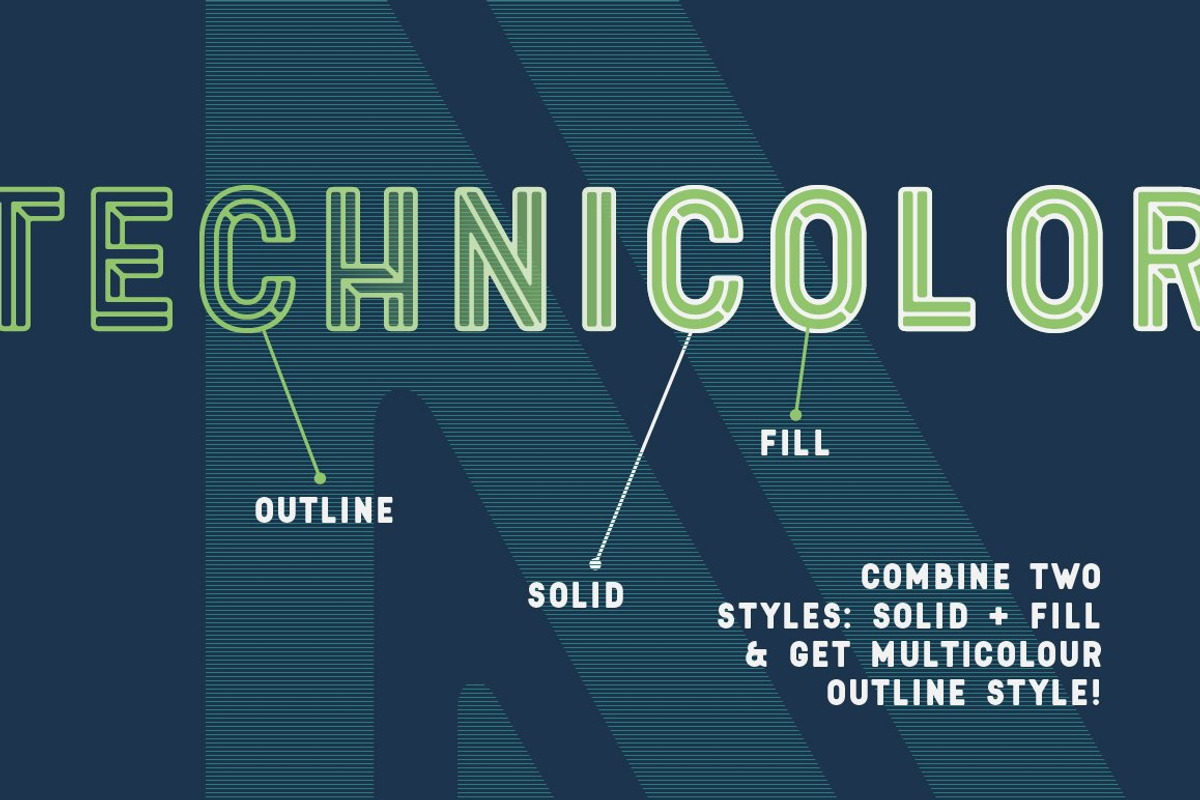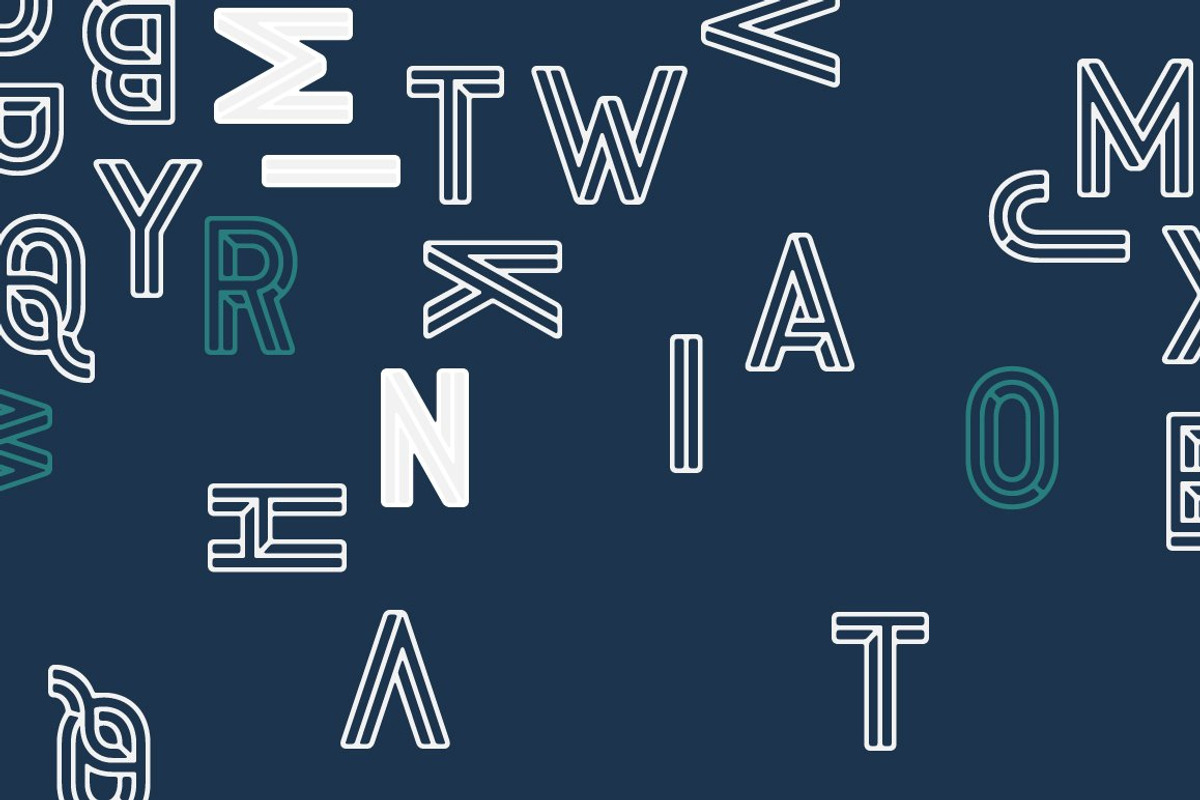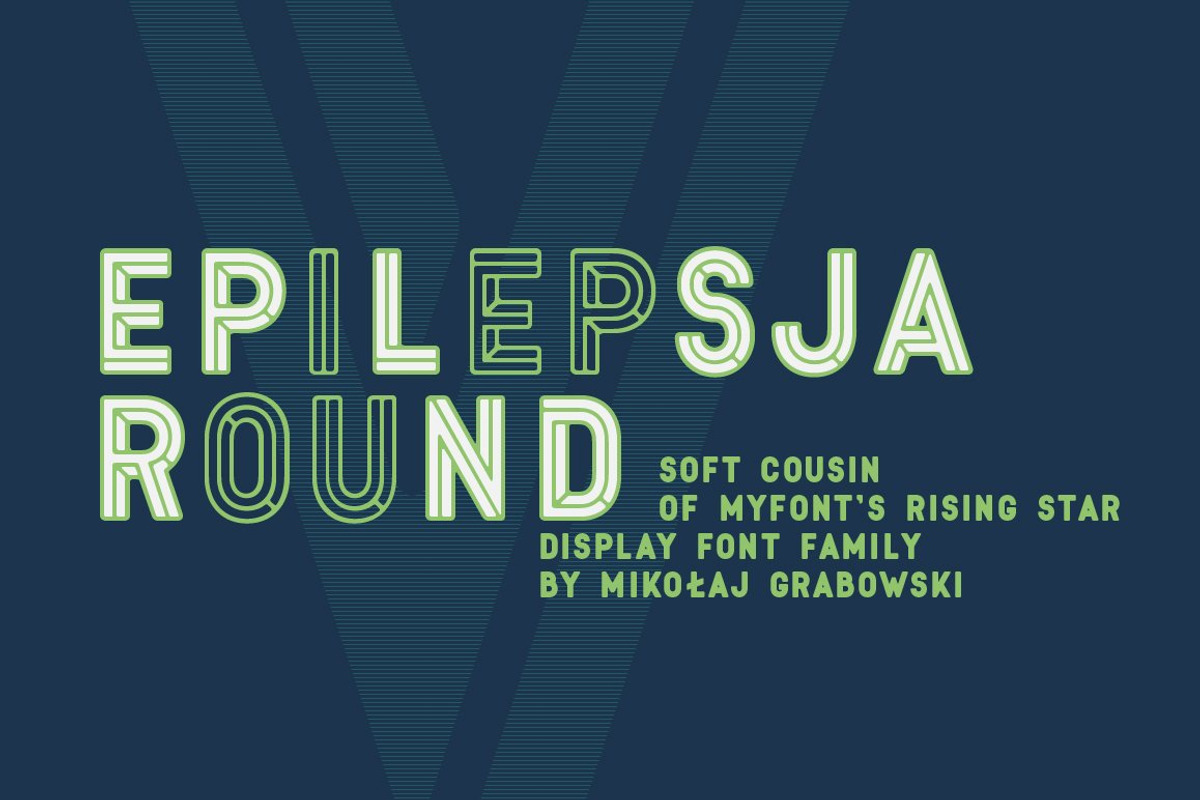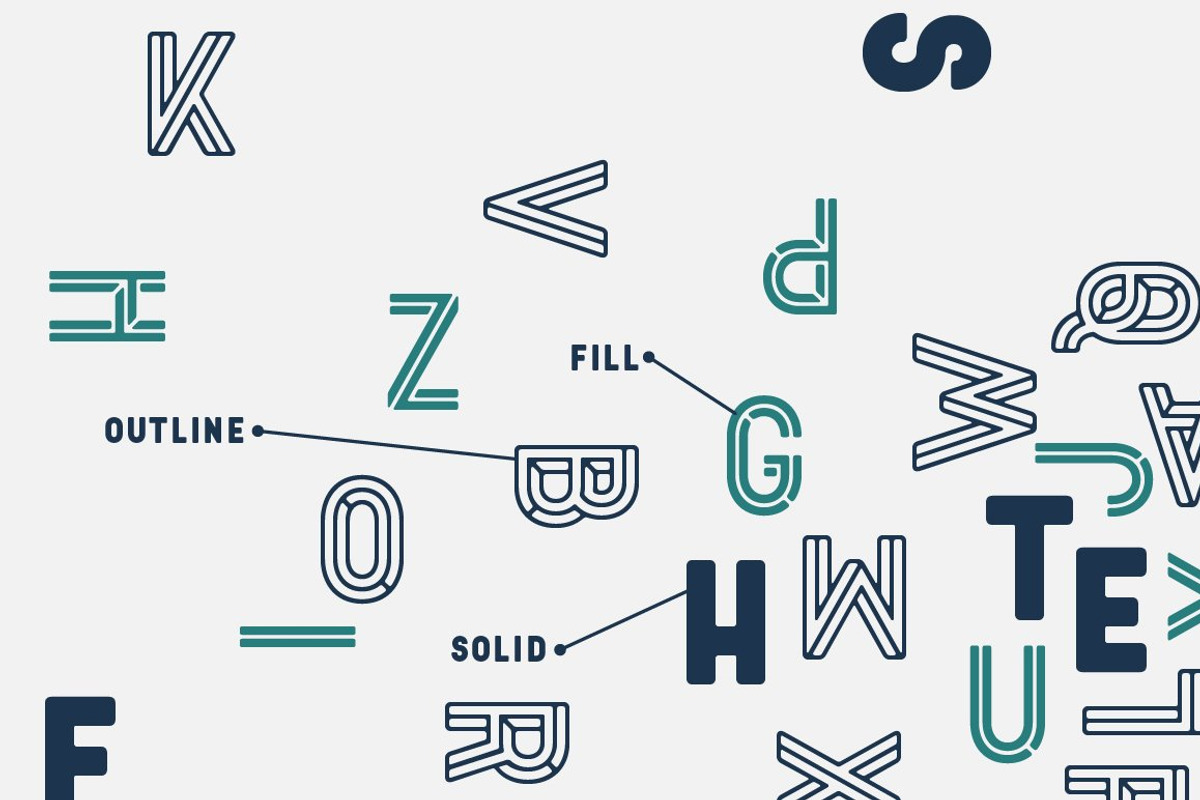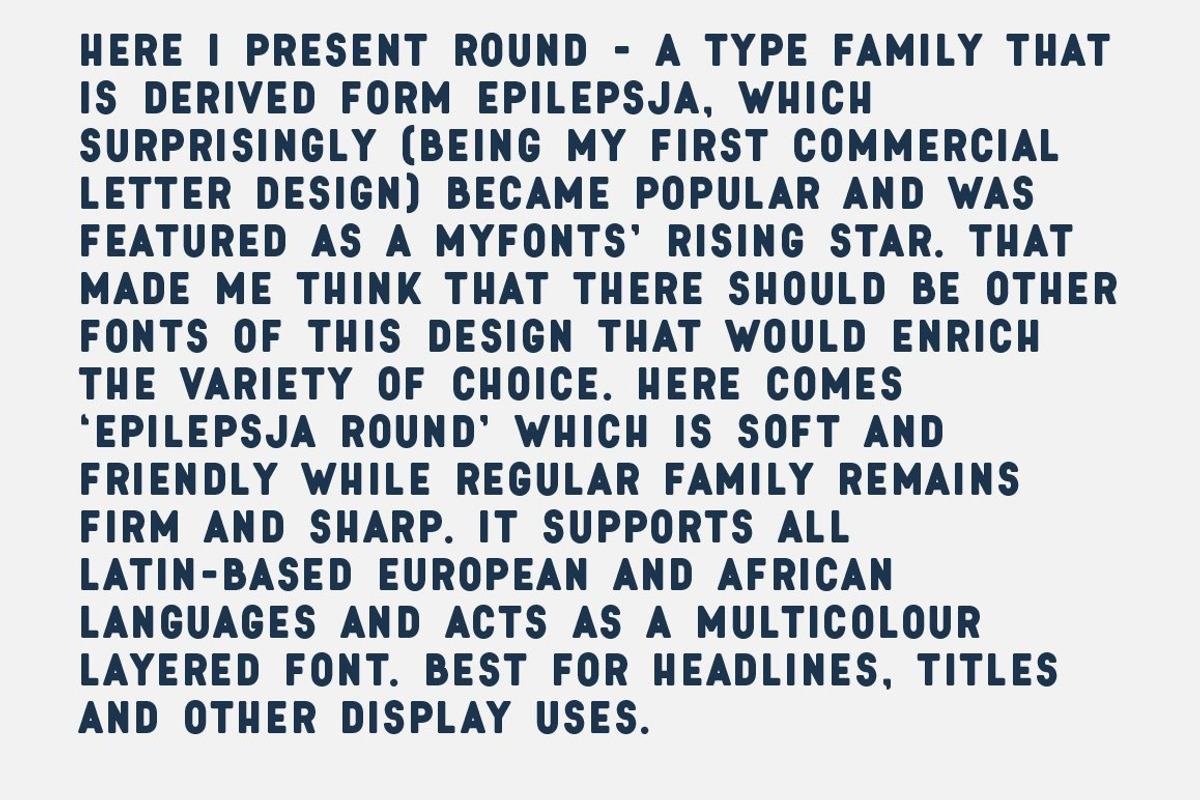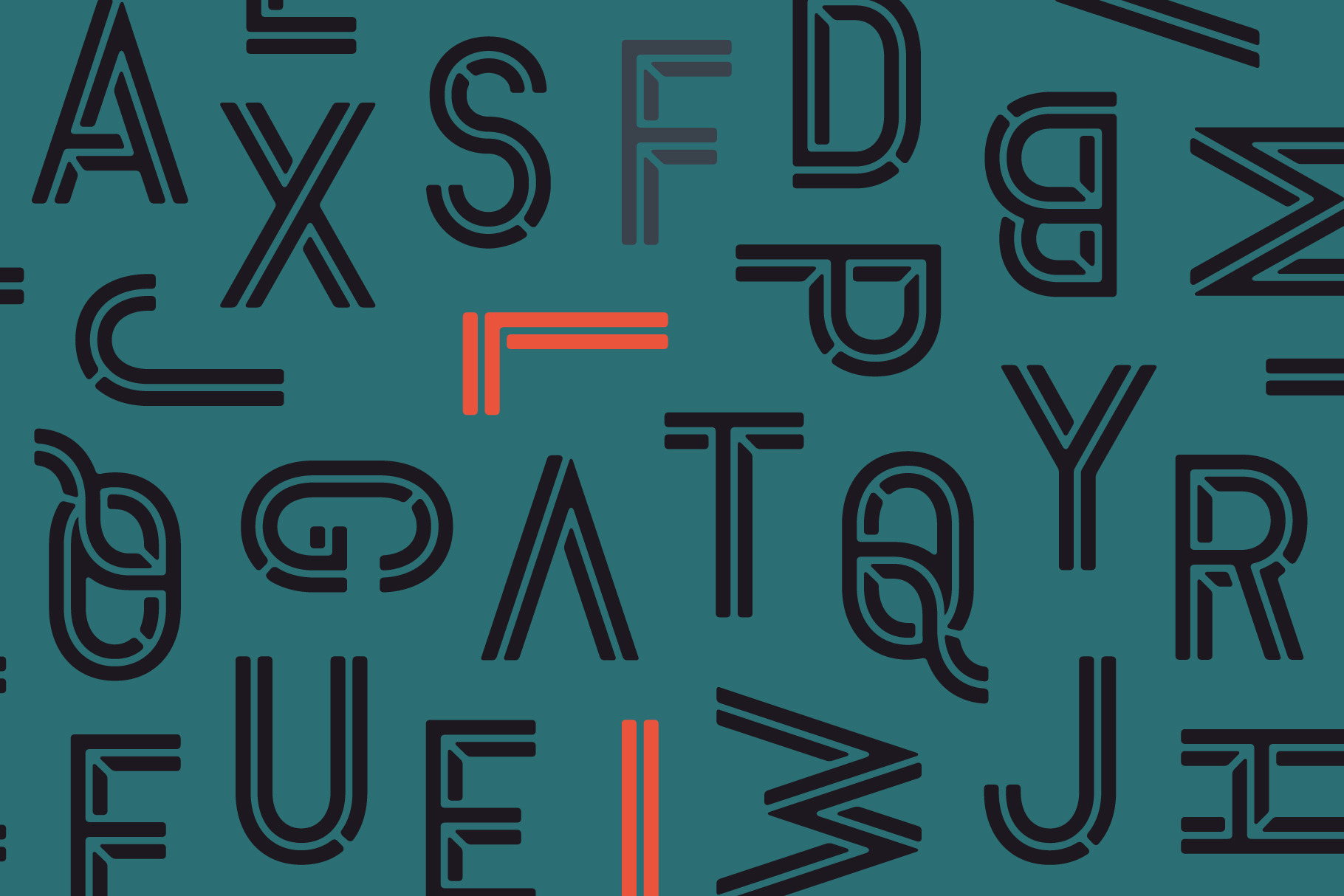
Epilepsja Round Fill
Here I present Round - a type family that is derived form Epilepsja, which was my first alphabet commercially out. After its release I came to think that there should be other fonts of this design that would enrich the variety of choice. Here comes ‘Epilepsja Round’ which is soft and friendly while the Regular family remains firm and sharp. It supports all Latin-based European and African languages and acts as a multicolour layered font. best for headlines, titles and other display uses..
It is an all-caps alphabet of stencil-sprayed and painted letters found in the city space. The glyphs are simple but unordinary. Every letter has something from Escher-like 3D illusion, but is flat simultaneously. Epilepsja Round consists of three styles: Outline, Solid and Fill. Outline is the base from which the other two styles are created. When you mix Solid with Fill, you can create two-color Outline style. You can even mix it with not-Round Epilepsja! Solid is neat and legible in small sizes.
Use it for posters, headlines, magazines, websites or anything you like.